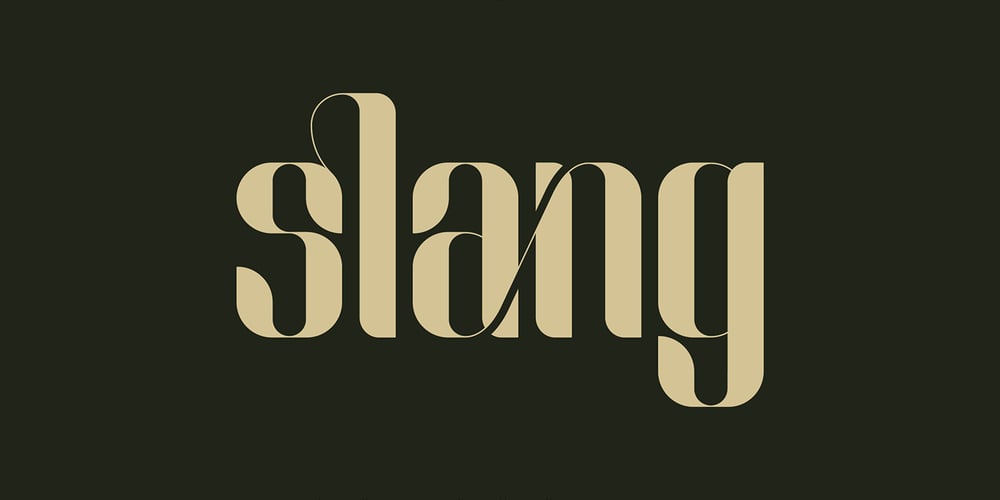
Slang Font Family was designed by Plamen Petrov and published by VP Creative Shop. Slang contains 1 styles and family package options. Meet Slang, a Ligature Font in Regular and Outline. Slang is a bold, clean font with a regular and an outline version, loaded with alternate and ligature glyphs. It’s a very versatile font that works great in large and small sizes. Slang is perfect for branding projects, home-ware designs, product packaging, magazine headers – or simply as a stylish text overlay to any background image. Uppercase, lowercase, numeral, punctuation and Symbols, Alternate glyphs, Ligature glyphs and has Multi-lingual support. How to access alternate glyphs? To access alternate glyphs in Adobe InDesign or Illustrator, choose Window Type & Tables Glyphs. In Photoshop, choose Window Glyphs. In the panel that opens, click the Show menu and choose Alternates for Selection. Double-click an alternate’s thumbnail to swap them out. Feel free to contact me if you have any questions. Mock ups and backgrounds used are not included. Thank you and enjoy.